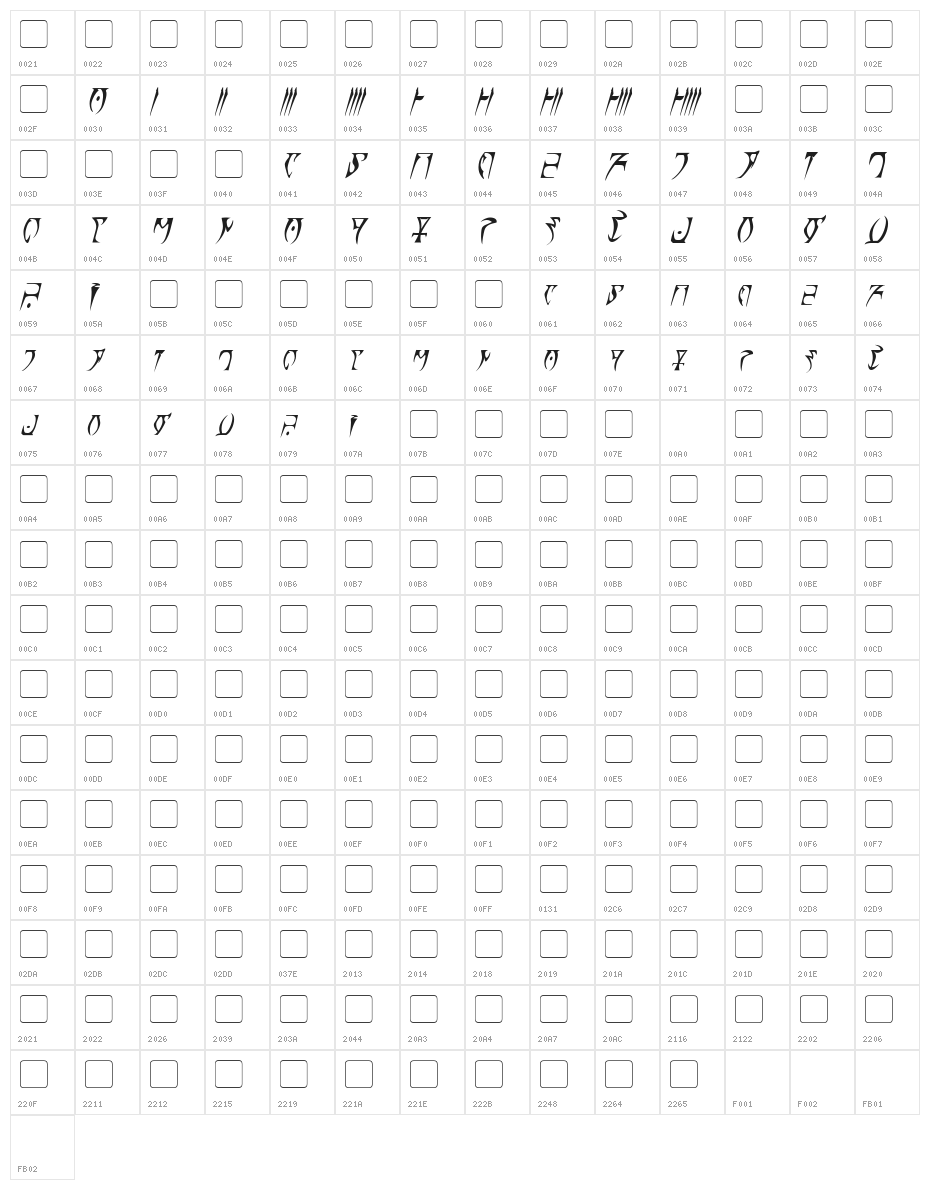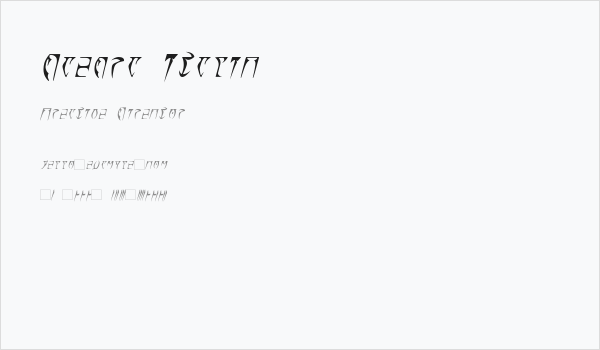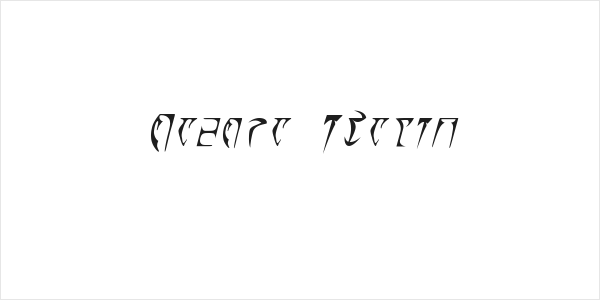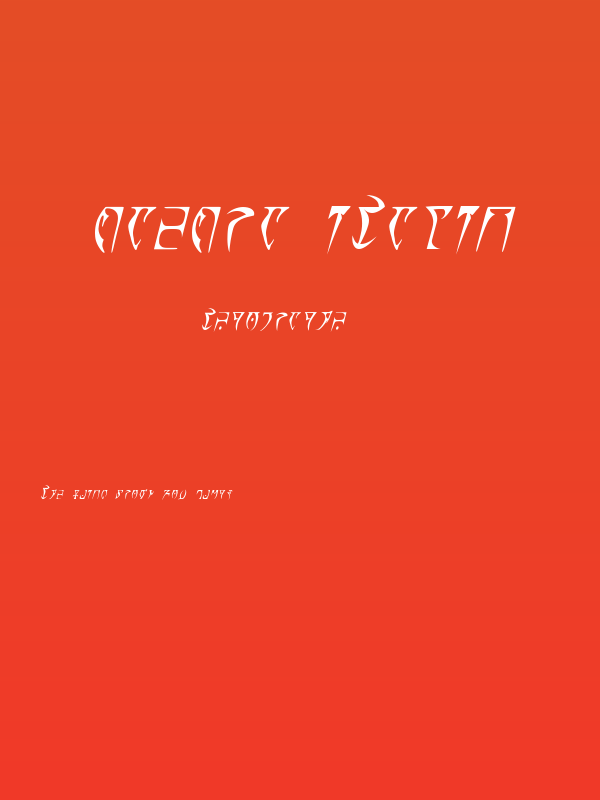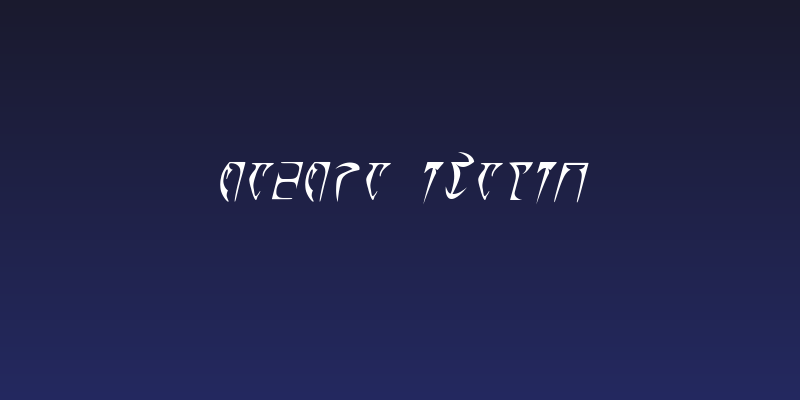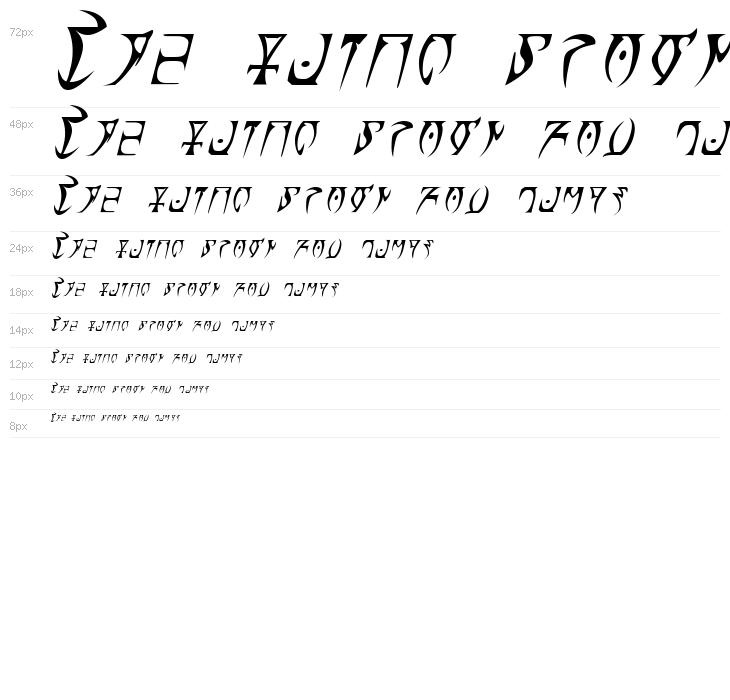
Daedra Italic Font
Daedra Italic Description
This font features a highly stylized and angular design, reminiscent of ancient runic scripts. The characters are sharp and pointed, with dramatic curves and edges that give it a mystical and otherworldly appearance. The strokes are bold and vary in thickness, creating a dynamic and striking visual impact. The overall aesthetic is both decorative and cryptic, making it suitable for themes that require a sense of mystery or fantasy. The unique shapes of the letters make it more suitable for display purposes rather than body text, as readability may be compromised at smaller sizes.
| Overall Style | Mystical, Fantasy, Ancient |
| Proposed Projects | Ideal for fantasy-themed projects, video game graphics, movie posters, or book covers that require a mysterious or ancient aesthetic. |